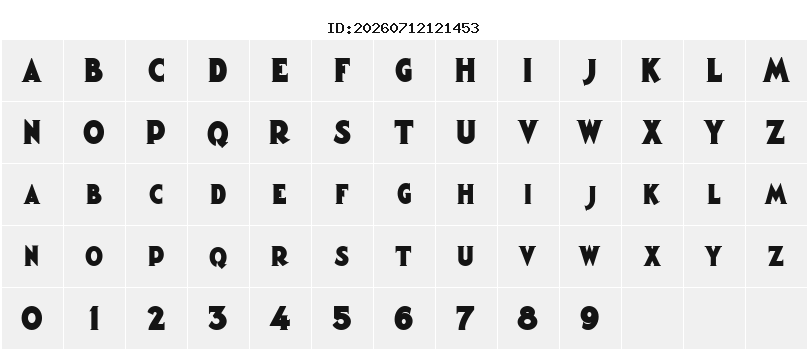
• Font Name: Magic Lantern NF
• Designer: Nick Curtis
• Manufacturer: Nick's Fonts
About Magic Lantern NF.ttf
Magic Lantern NF.ttf is a modern, elegant sans-serif font designed for ultimate readability and visual harmony. Perfect for branding, headlines, web design, and print materials.